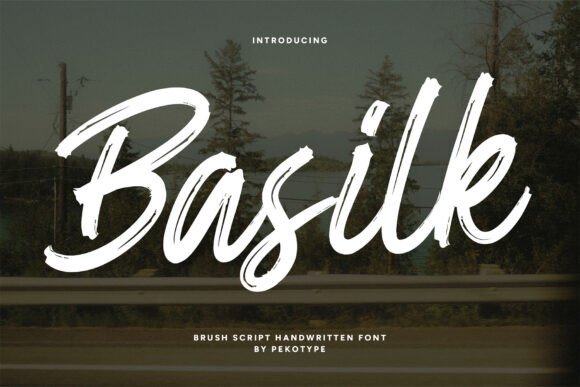
Basilk Font: Unleash Your Brand’s Bold Personality with a Hand-Lettered Charm
In the world of typography, fonts play a crucial role in shaping a brand’s identity and visual appeal. With the vast array of fonts available, finding the perfect one that embodies your brand’s personality can be a daunting task. However, if you’re looking for a font that exudes boldness, energy, and a touch of handcrafted elegance, look no further than Basilk. In this article, we’ll dive into the world of Basilk, a rough brush script font that is sure to elevate your brand’s visual game.
Introducing Basilk: A Rough Brush Script Font with Raw Energy
Basilk is a unique and captivating font that combines the expressive power of brush strokes with the elegance of natural handwriting. Crafted with raw energy and hand-lettered charm, this font is designed to make a statement. Whether you’re a brand looking to revamp your logo, a designer seeking to create eye-catching merchandise, or a social media enthusiast wanting to turn heads, Basilk is the perfect choice.
The Characteristics of Basilk: What Sets it Apart
So, what makes Basilk stand out from the rest? Here are some of its key characteristics:
- Hand-lettered charm: Every letter in Basilk is carefully crafted to exude a sense of handcrafted elegance, giving your words a unique and artistic feel.
- Raw energy: The rough brush script style of Basilk infuses your text with a dynamic and bold personality, perfect for brands and creators who dare to be different.
- Expressive power: The brush strokes used in Basilk add a level of expressiveness to your text, making it perfect for headlines, titles, and emphasis.
- Elegance: Despite its bold nature, Basilk still maintains a level of elegance, making it suitable for a wide range of design applications.
Perfect Use Cases for Basilk
Basilk is a versatile font that can be used in various design applications. Here are some perfect use cases for this stunning font:
- Logo design: Basilk’s bold and hand-lettered charm makes it an excellent choice for logo design. Create a lasting impression with a custom logo that embodies your brand’s personality.
- Billboards and signage: The raw energy and expressiveness of Basilk make it perfect for billboards and signage. Grab attention and make a statement with this eye-catching font.
- Merchandise: Basilk is ideal for designing merchandise such as t-shirts, mugs, and tote bags. Add a touch of personality to your products and make them stand out.
- Social media graphics: Elevate your social media game with Basilk. Create stunning graphics that turn heads and leave a lasting impression.
Why Choose Basilk for Your Design Needs?
With so many fonts available, why choose Basilk? Here are some compelling reasons to consider:
- Unique personality: Basilk’s hand-lettered charm and raw energy give it a unique personality that sets it apart from other fonts.
- Versatility: This font is versatile and can be used in various design applications, from logo design to social media graphics.
- High-quality design: Basilk is designed with high-quality and precision, ensuring that your text looks stunning and professional.
Tips for Using Basilk Effectively
To get the most out of Basilk, here are some tips for using it effectively:
- Use it sparingly: Basilk is a bold font, so use it sparingly to avoid overwhelming your design.
- Pair it with neutral fonts: Pair Basilk with neutral fonts to create contrast and make your text more readable.
- Experiment with colors: Basilk looks stunning in bold colors, so experiment with different colors to find the perfect fit for your design.
- Play with sizes: Basilk can be used in various sizes, from large headlines to smaller text. Play with different sizes to create visual interest.
In conclusion, Basilk is a stunning rough brush script font that is sure to elevate your brand’s visual game. With its hand-lettered charm, raw energy, and elegance, Basilk is perfect for brands and creators who dare to be bold. Whether you’re designing a logo, billboard, merchandise, or social media post, Basilk brings a unique and dynamic personality to your words. So, why settle for a bland font when you can make a statement with Basilk?